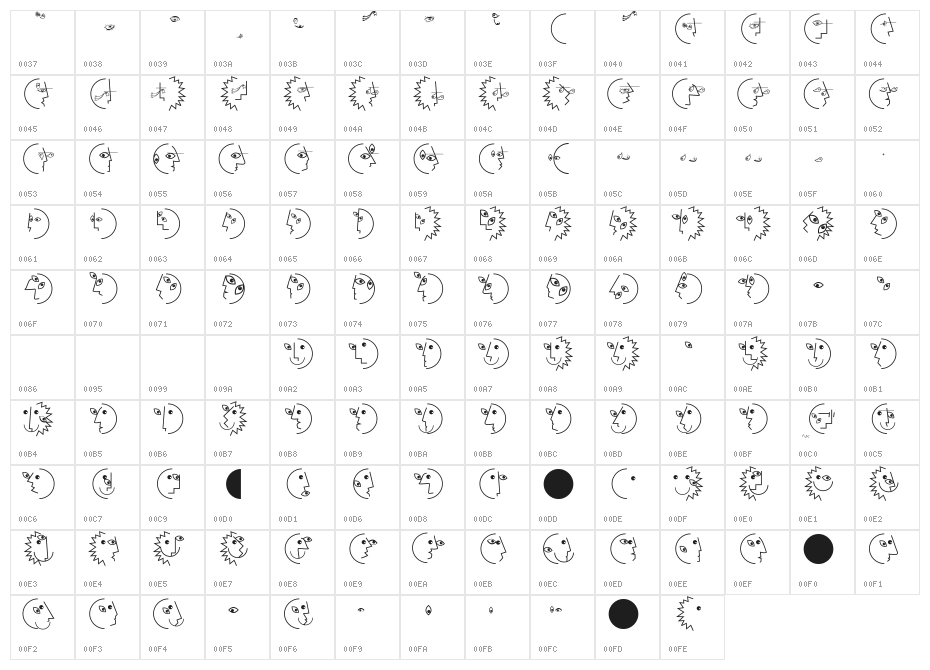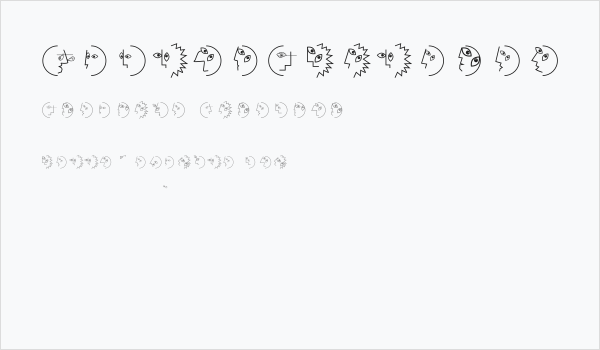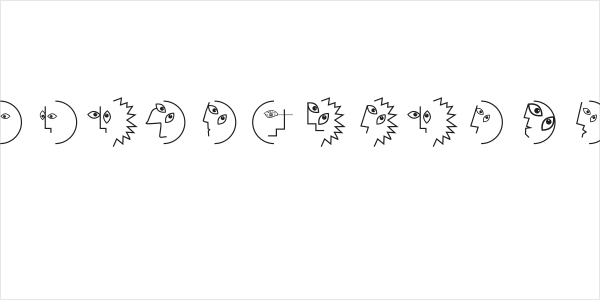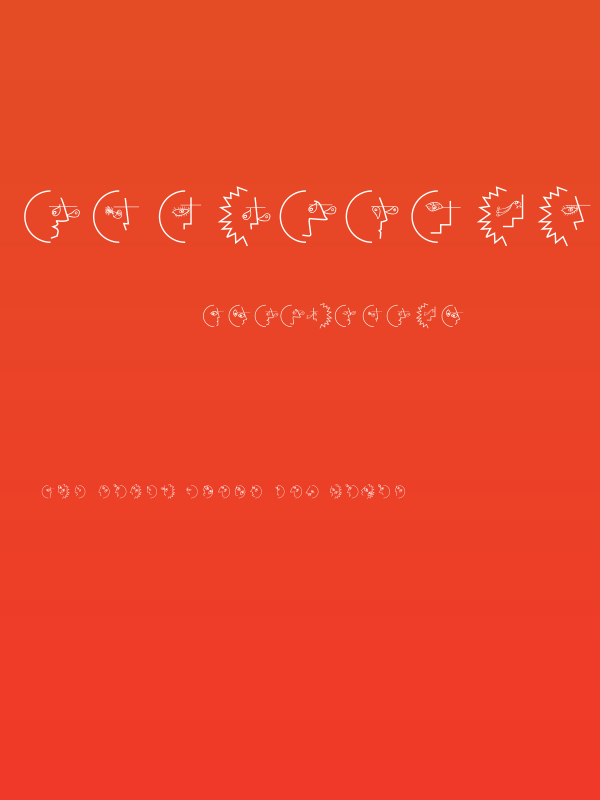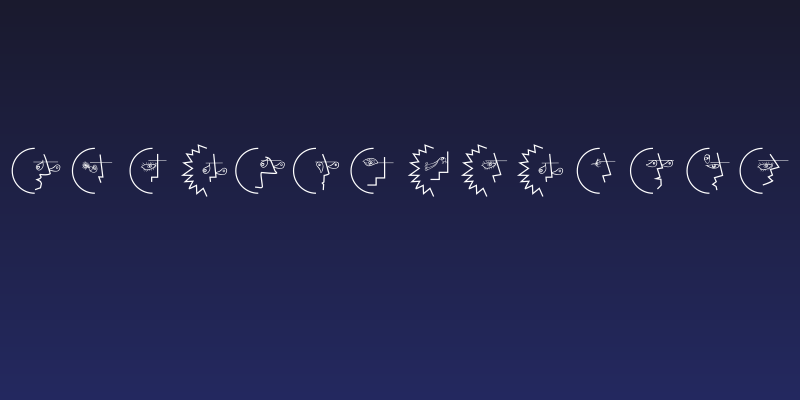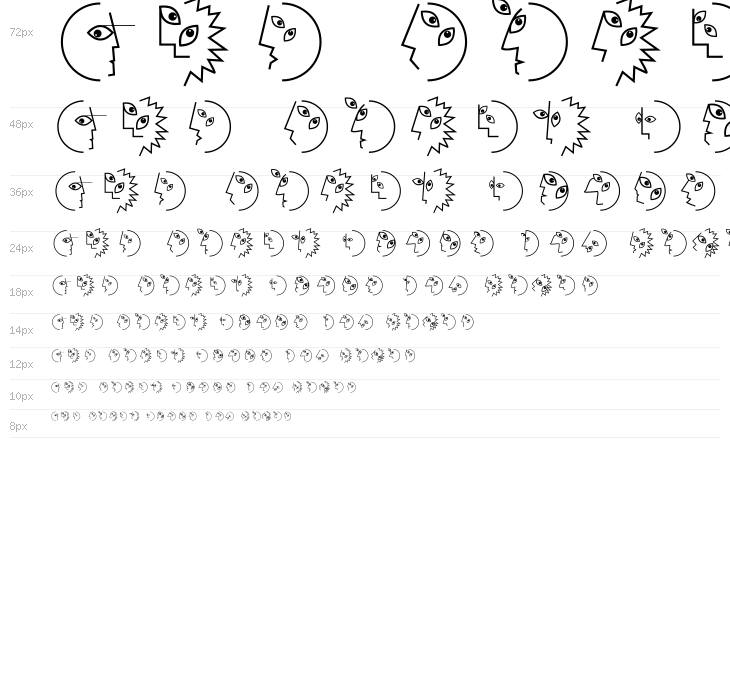
PablosChildren Font
PablosChildren Description
This font is a highly creative and artistic representation, featuring abstract, Picasso-inspired faces as characters. Each letter and symbol is uniquely designed with a playful and imaginative style, incorporating elements like eyes, noses, and mouths into the shapes. The overall appearance is whimsical and expressive, making it stand out as a decorative and illustrative typeface. The characters are consistent in their artistic theme, providing a cohesive yet varied visual experience. This font is not suitable for traditional text but excels in artistic and design contexts where creativity is paramount.